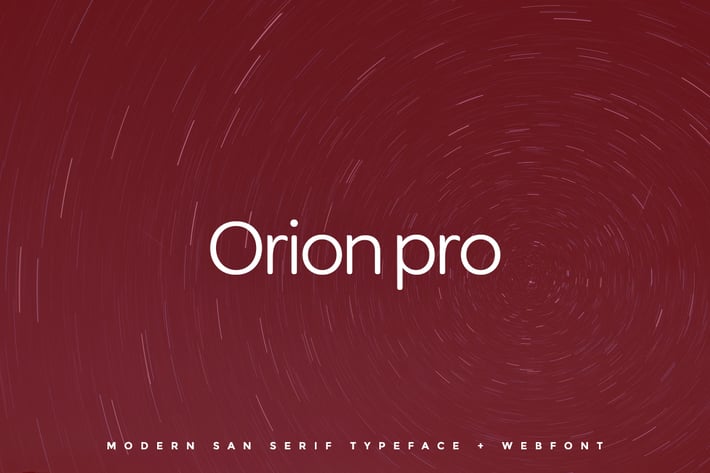
Orion pro - Typeface + Web Fonts
Orion Pro Typeface
Orion Pro is a modern and Minimal Sans Serif typeface with for Minimal typography designs, Orion Pro can keep the minimalism at its level best and is a Perfect choice for, Display, headlines, paragraph, subheading, notes, Big Banners. Classic & Decorative Typography Designs.
Font Designed and Crafted by Maya GS, Distributed by Webhance Studio.